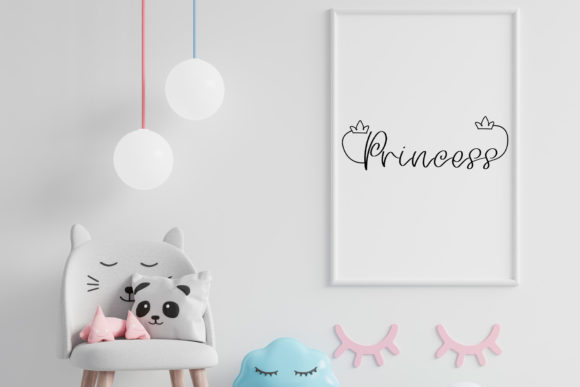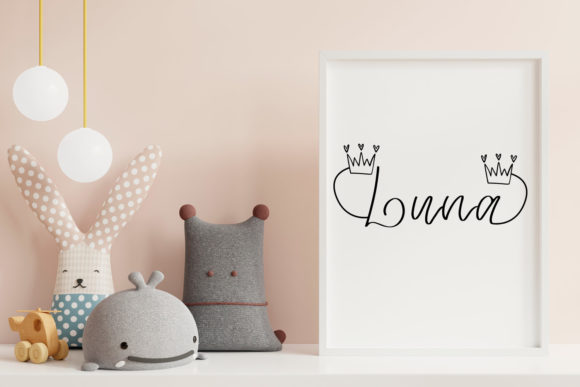
Queen Elizabeth Font Font
db-ku.com - Script & Handwritten -- Queen Elizabeth is a gorgeous handwritten script font designed for all princesses out there. It is perfect for all DIY projects!